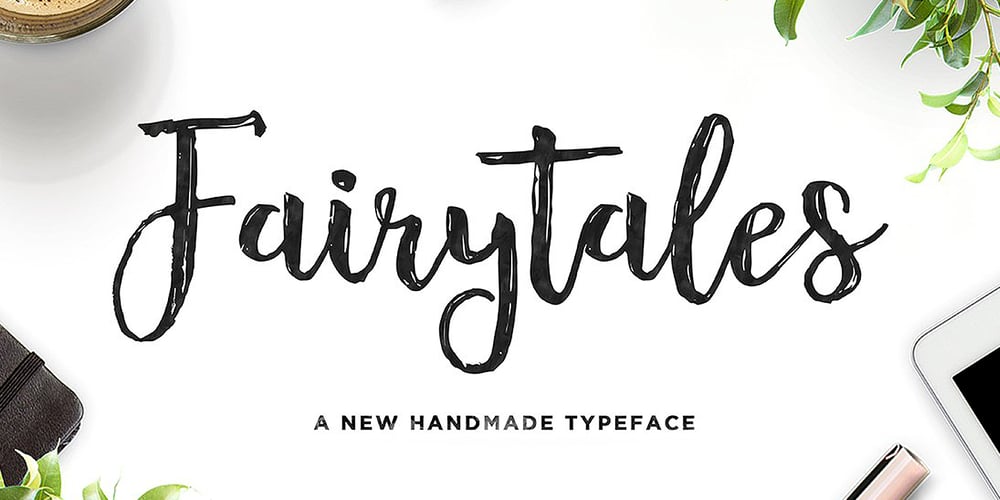
Fairytales Script
Fairytales Script font
Fairytales Script Font Family was designed by Mauli Zari and published by Dhan Studio. Fairytales Script contains 2 styles and family package options. Fairytales Script is a beautiful handmade typeface, organic and dancing baseline with different swashes that can be applied to the beginning and ends of all lowercase. For the separate swashes font, type lowercase a-z for the beginning swashes and end swashes. This fonts can be used for various purposes.such as headings, signature, logos, wedding invitation, t-shirt, letterhead, signage, lable, news, posters, badges etc.